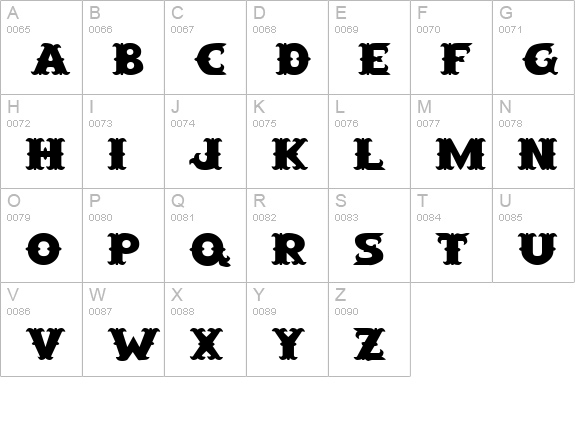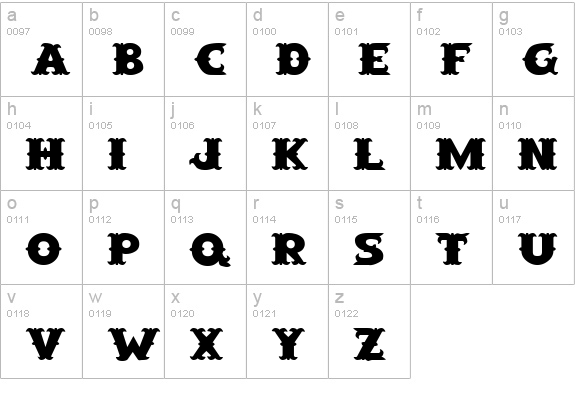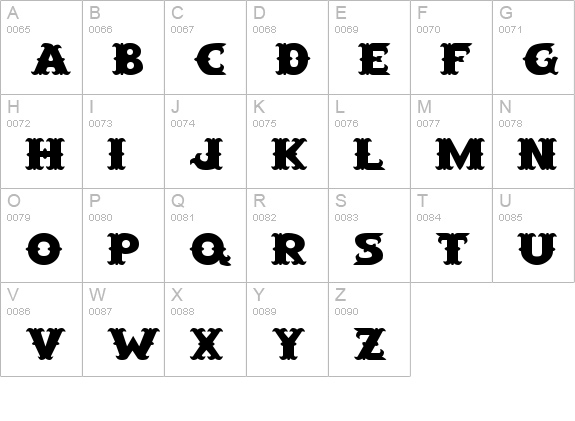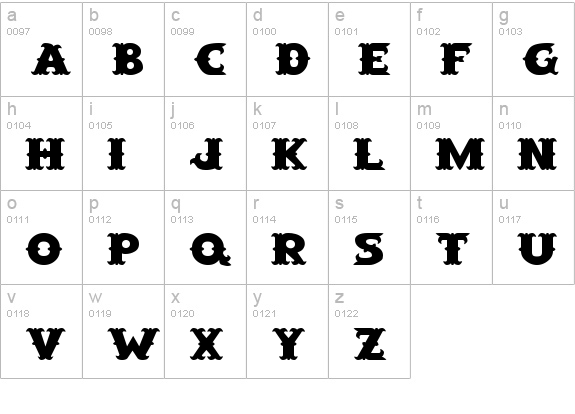
Saloon Regular Font Details
Saloon Regular is the standard, neutral variant in the Saloon typeface family \xE2\x80\x94 well suited to general body text, paragraphs, and standard typographic work.
Saloon Regular font is a timeless and versatile typeface that exudes a classic charm. With its strong and balanced letterforms, this font is perfect for a wide range of design projects, from branding and packaging to editorial and signage. Its clean lines and distinct character give it a sense of elegance and sophistication, making it an excellent choice for both formal and informal applications. The Saloon Regular font is incredibly legible, ensuring that your message is delivered with clarity and impact. Whether used for headlines, body text, or captions, this font provides excellent readability across various sizes and mediums. Additionally, its well-crafted kerning and spacing create a harmonious flow, ensuring a pleasant reading experience for your audience. One of the most appealing aspects of Saloon Regular font is that it is freely available to download at FontsMarket.com. This means that you can easily access and utilize this exceptional typeface without any cost or restrictions. Whether you are a professional designer or a hobbyist, this font grants you the freedom to explore your creativity without any limitations. With Saloon Regular font, you can effortlessly convey a sense of timelessness and sophistication in your designs. Its versatility and accessibility make it a valuable asset for any project, allowing you to create stunning visuals that captivate and engage your audience. So don't miss out on this fantastic opportunity to enhance your designs with a high-quality font that is both beautiful and free to use. Download Saloon Regular font today at FontsMarket.com and start elevating your design game to new heights.